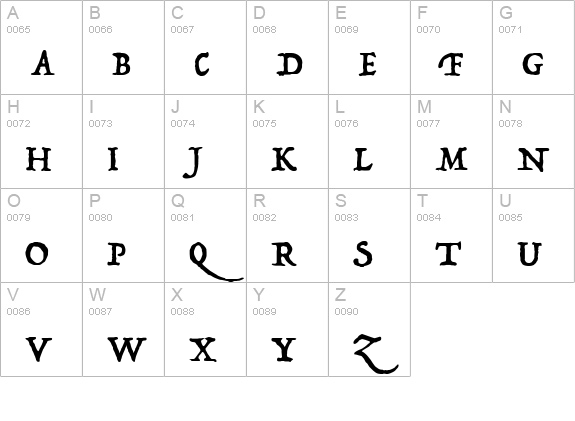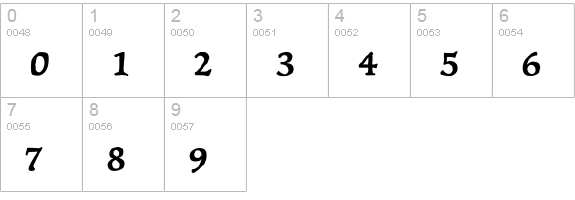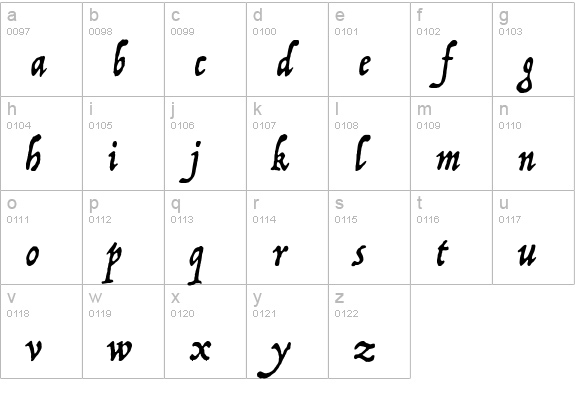
Trattatello Font Details
Trattatello is a free for personal use font in the Script > Cursive category, designed by FM2023. It has been downloaded 3,010 times and is available for Windows, Mac and Linux.
Trattatello font is a charming and elegant typeface that exudes sophistication and grace. With its delicate curves and stylish flourishes, this font is perfect for adding a touch of class to any design project. Whether you're creating a wedding invitation, a business card, or a logo, Trattatello font will elevate your work to the next level.